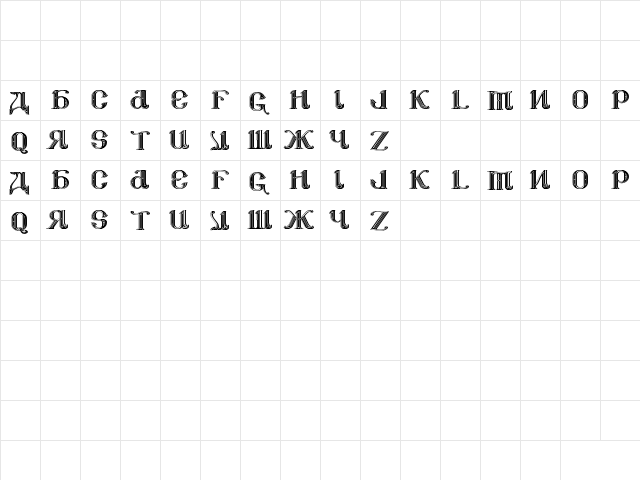
CSAR PARADE DRESS (Display Caps Regular
Design Context for CSAR PARADE DRESS (Display Caps Typeface
CSAR PARADE DRESS (Display Caps is built around its visual character rather than neutral utility — its distinctive forms are designed to make an impression at display sizes.
Font Pairing: Pair with a clean neutral sans-serif for body copy to let CSAR PARADE DRESS (Display Caps's character lead without overwhelming the composition.
Pro Tip: Treat CSAR PARADE DRESS (Display Caps as the centrepiece of your typographic hierarchy. One strong heading set in a decorative face can carry an entire layout.